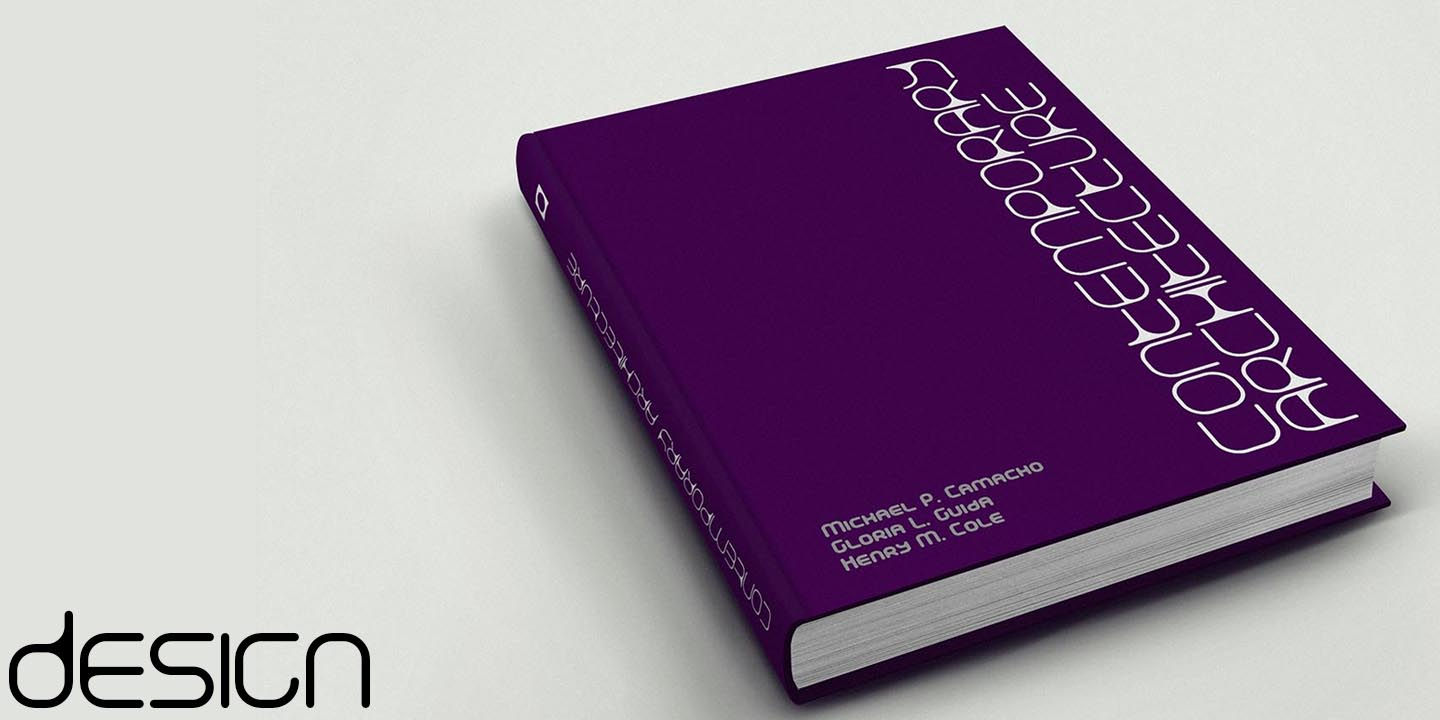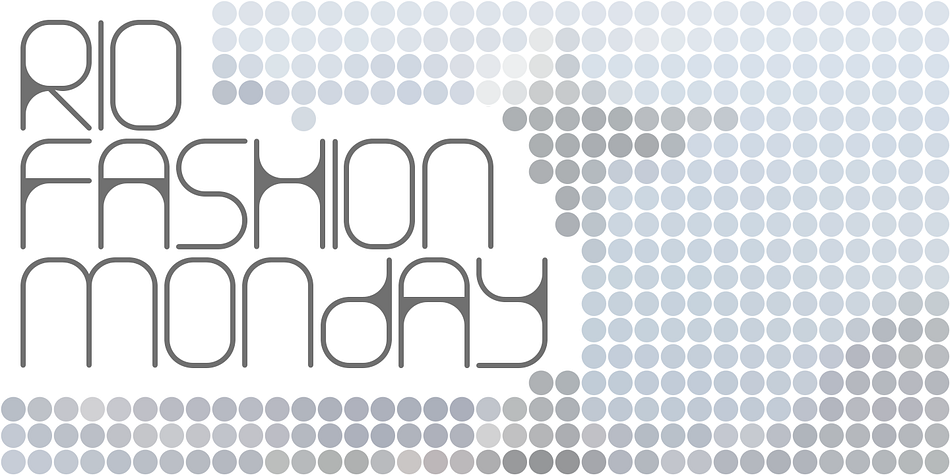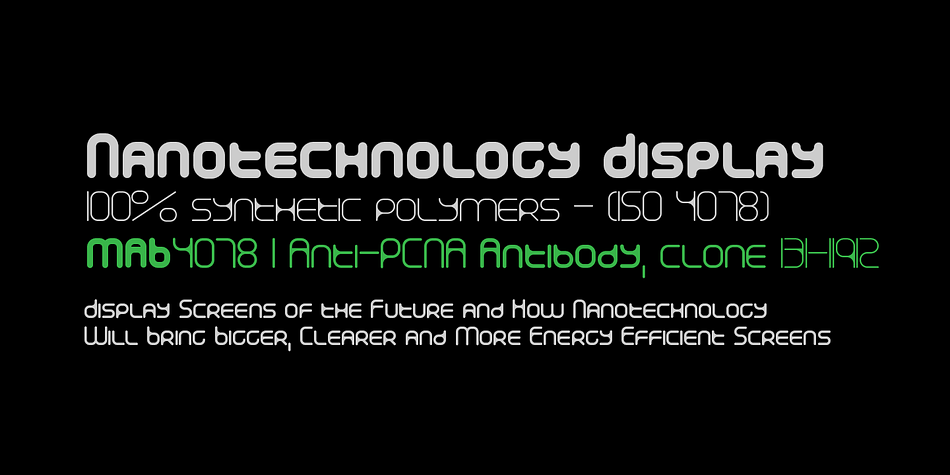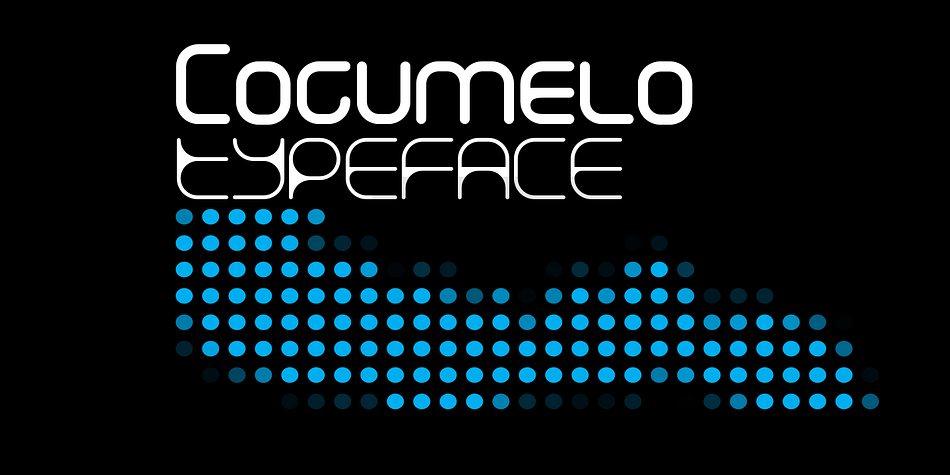
Cogumelo is a display sans face, with a seventies flavor, unicase with shorter small caps.
It is called Cogumelo, which means mushroom in Portuguese.
Is has a technical and organic look.  Although is has his roots at the seventies, it has a fresh look.